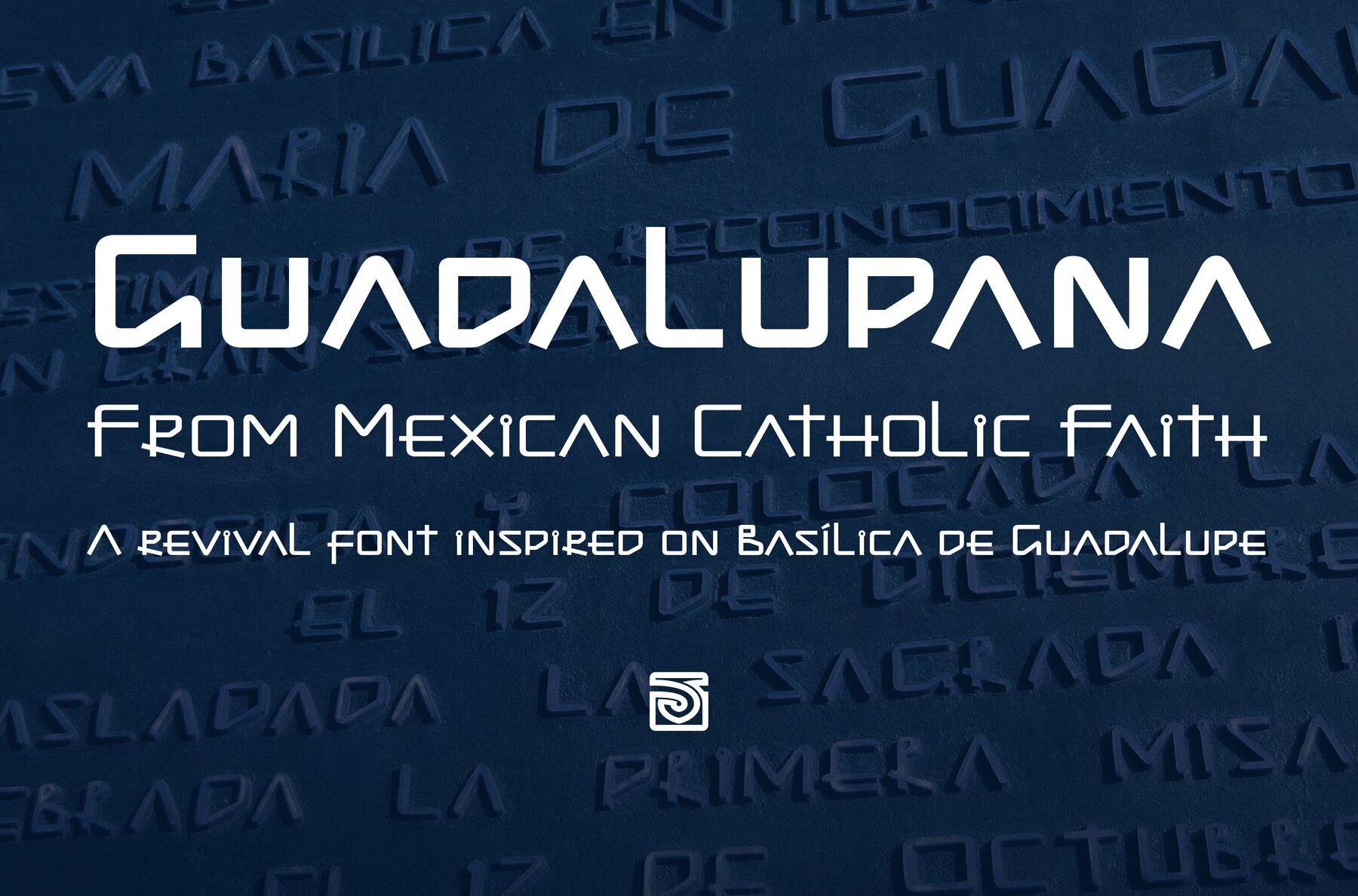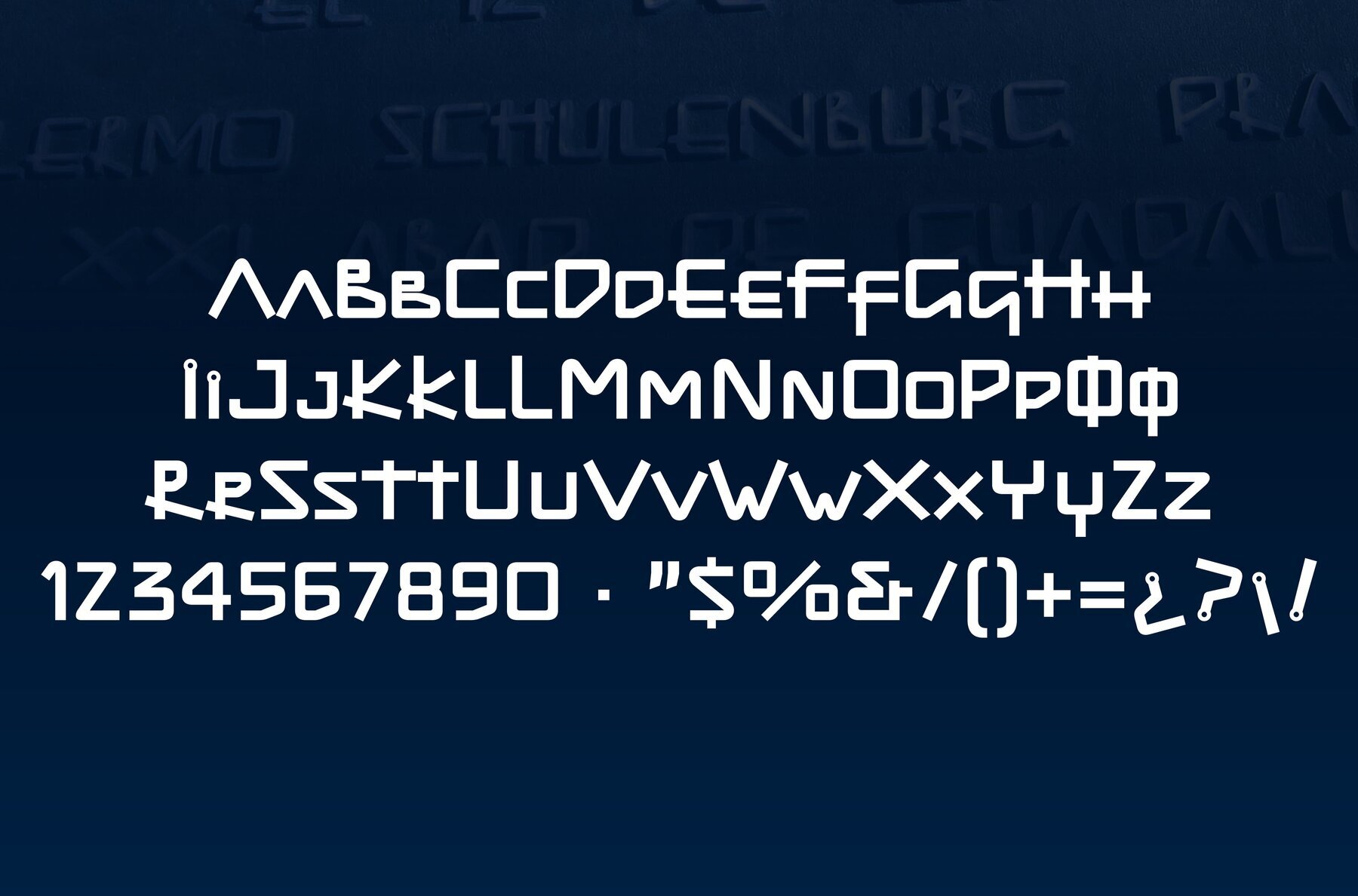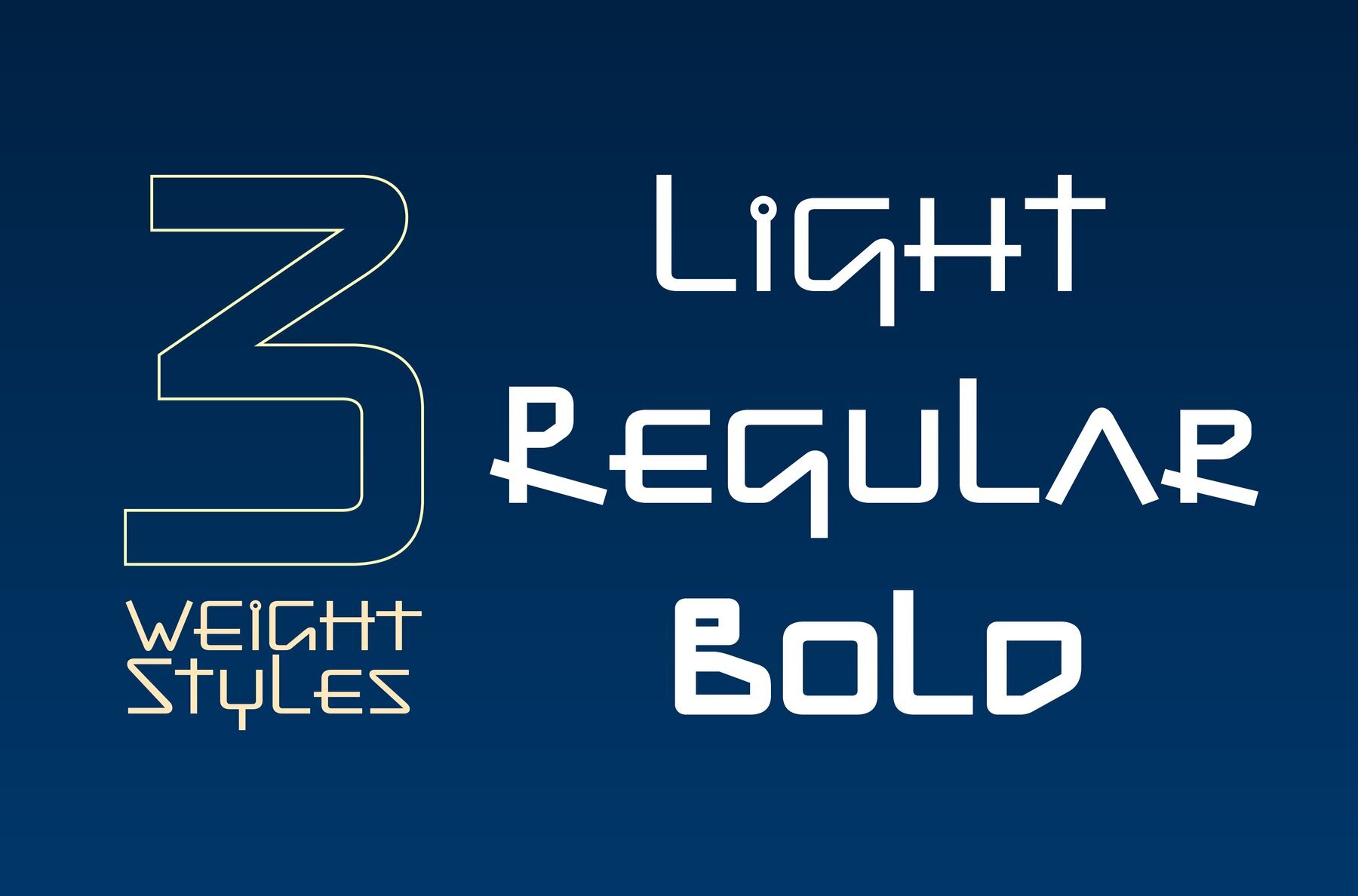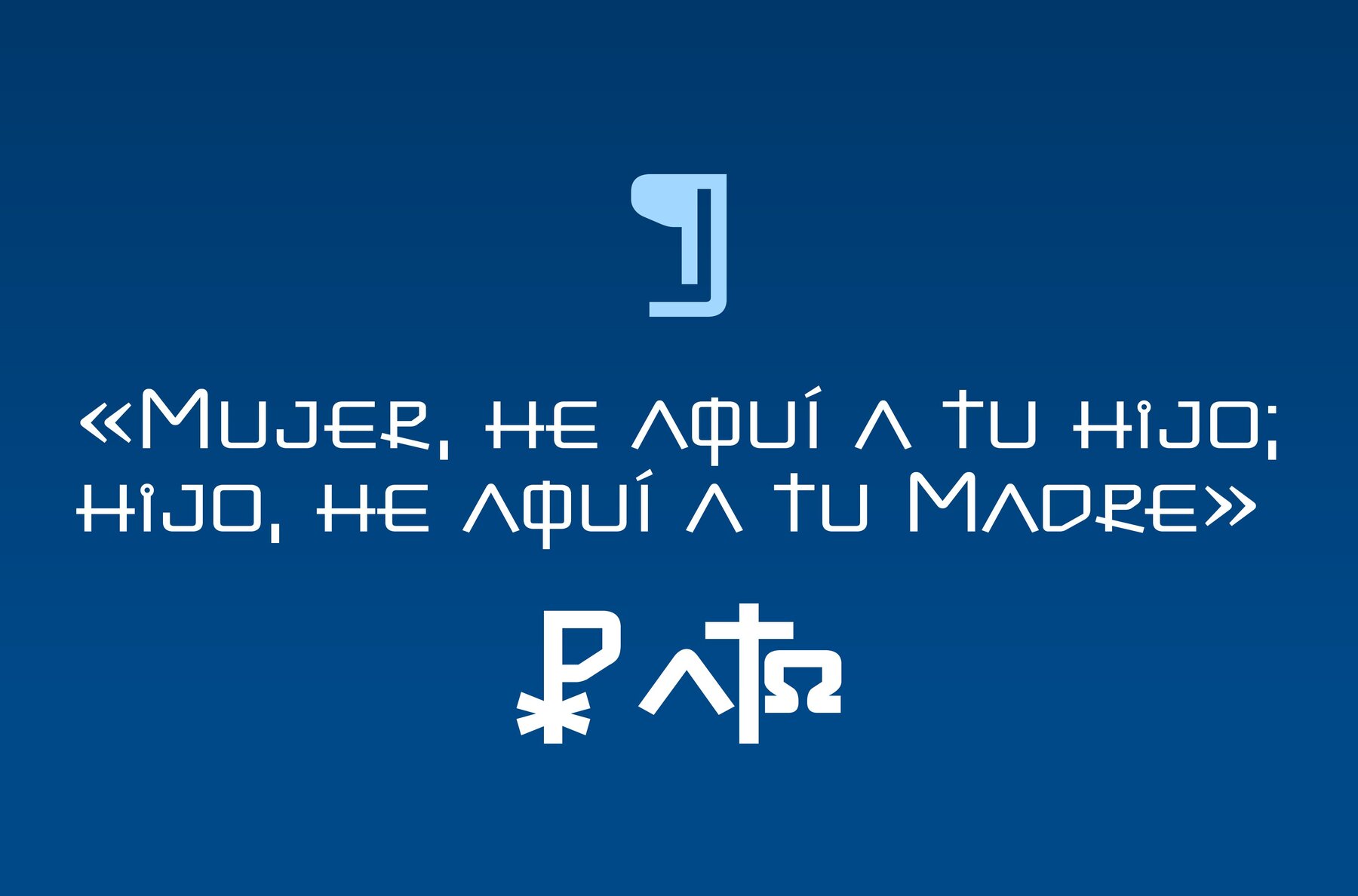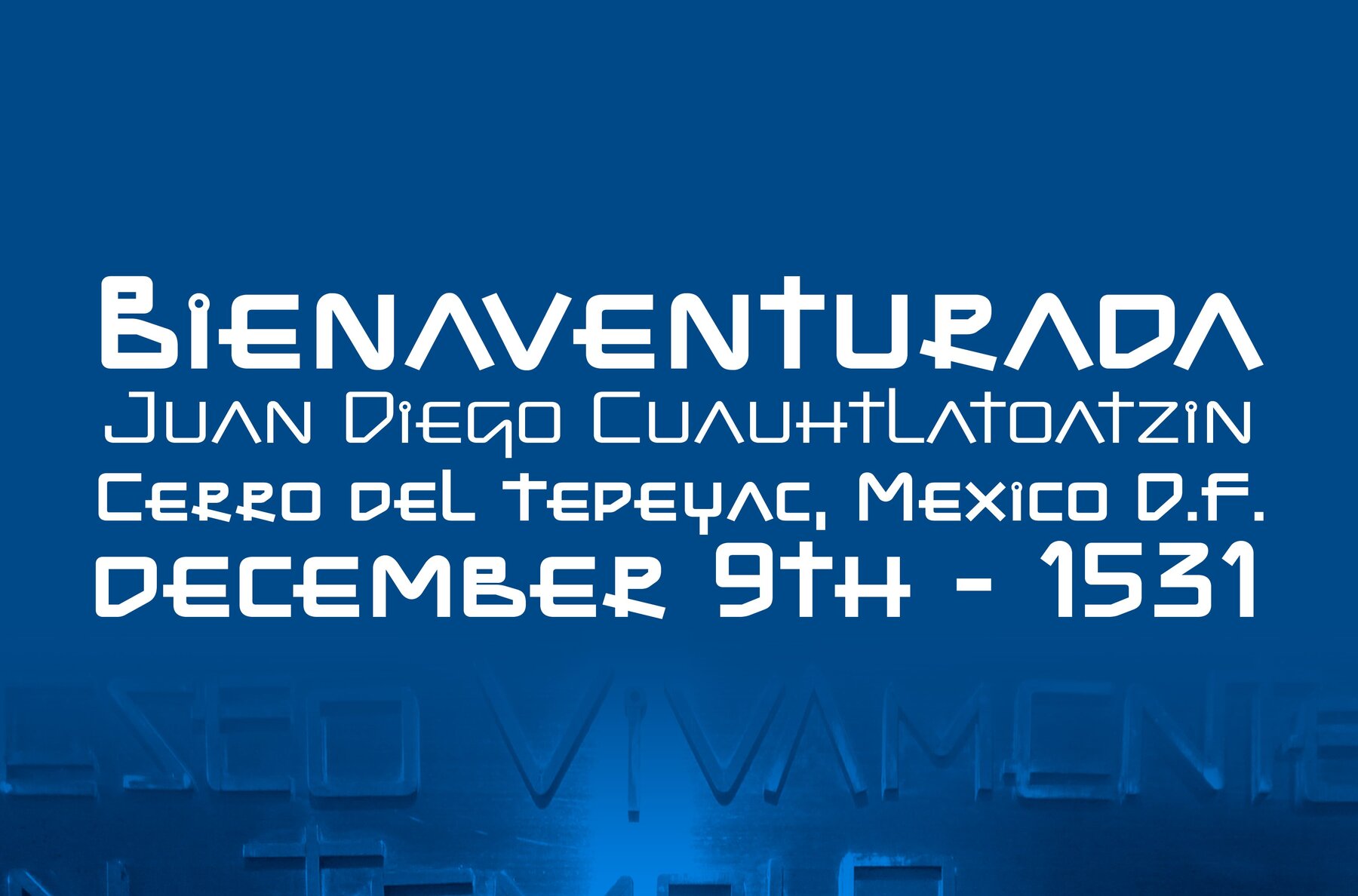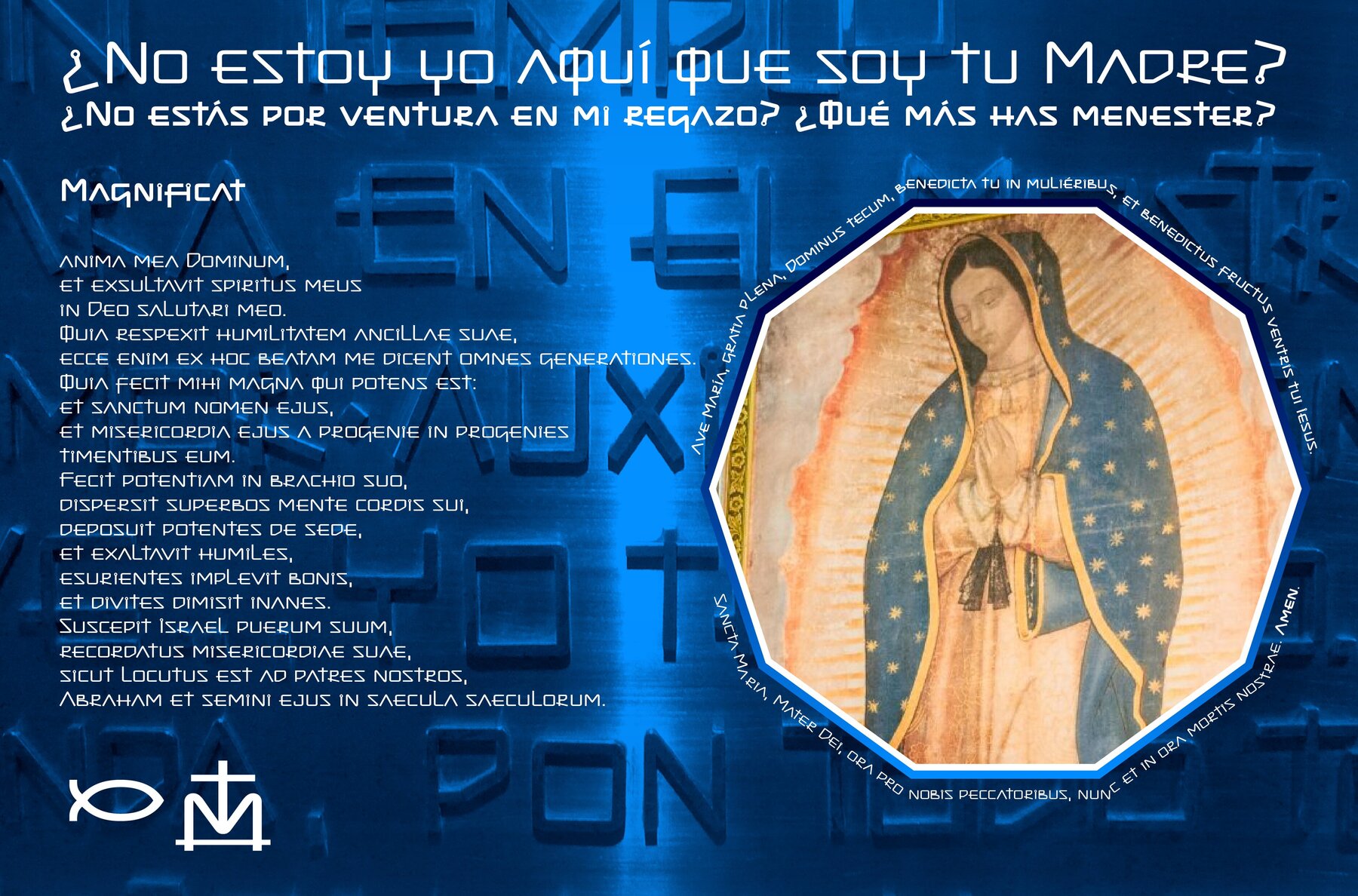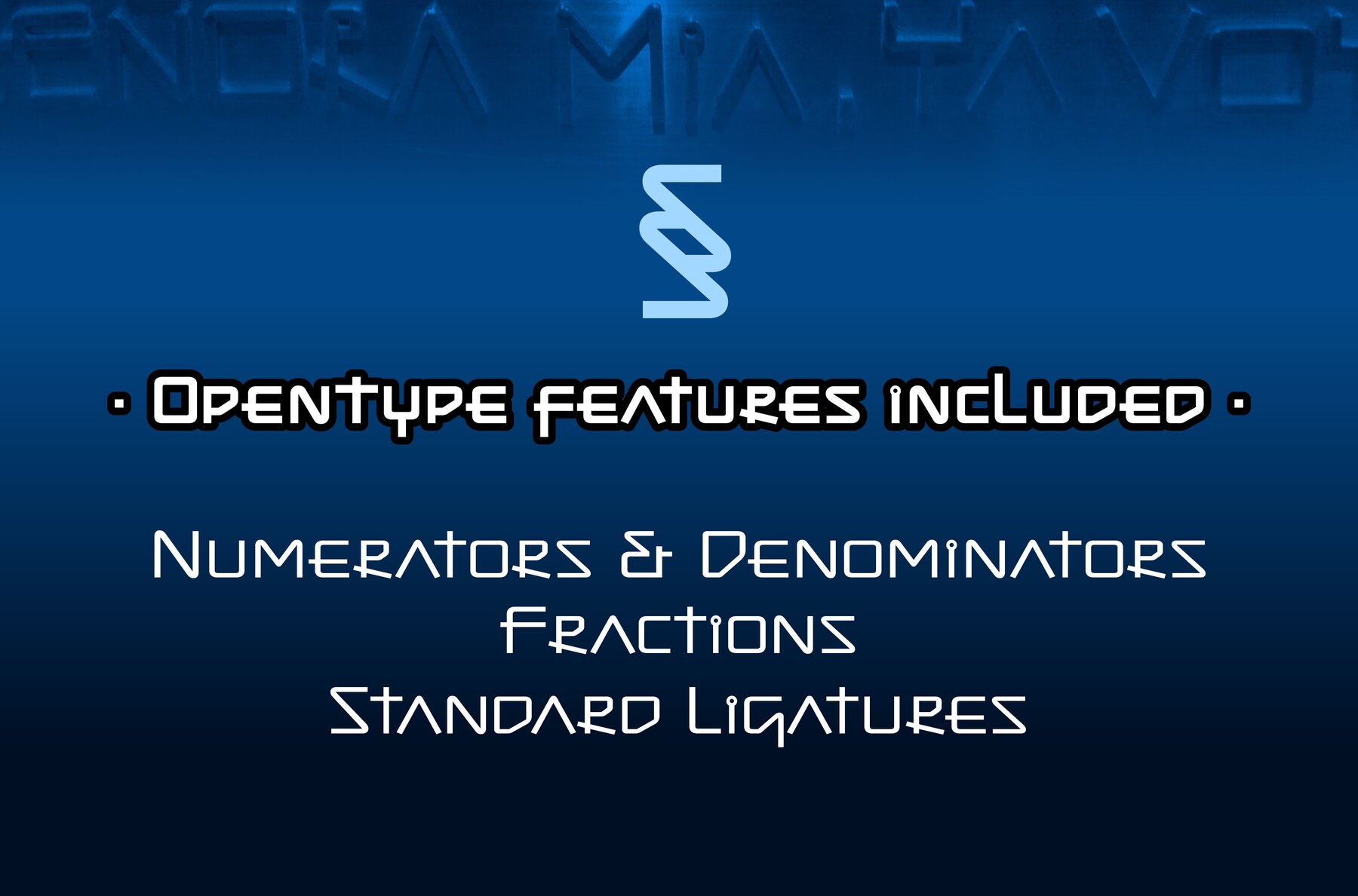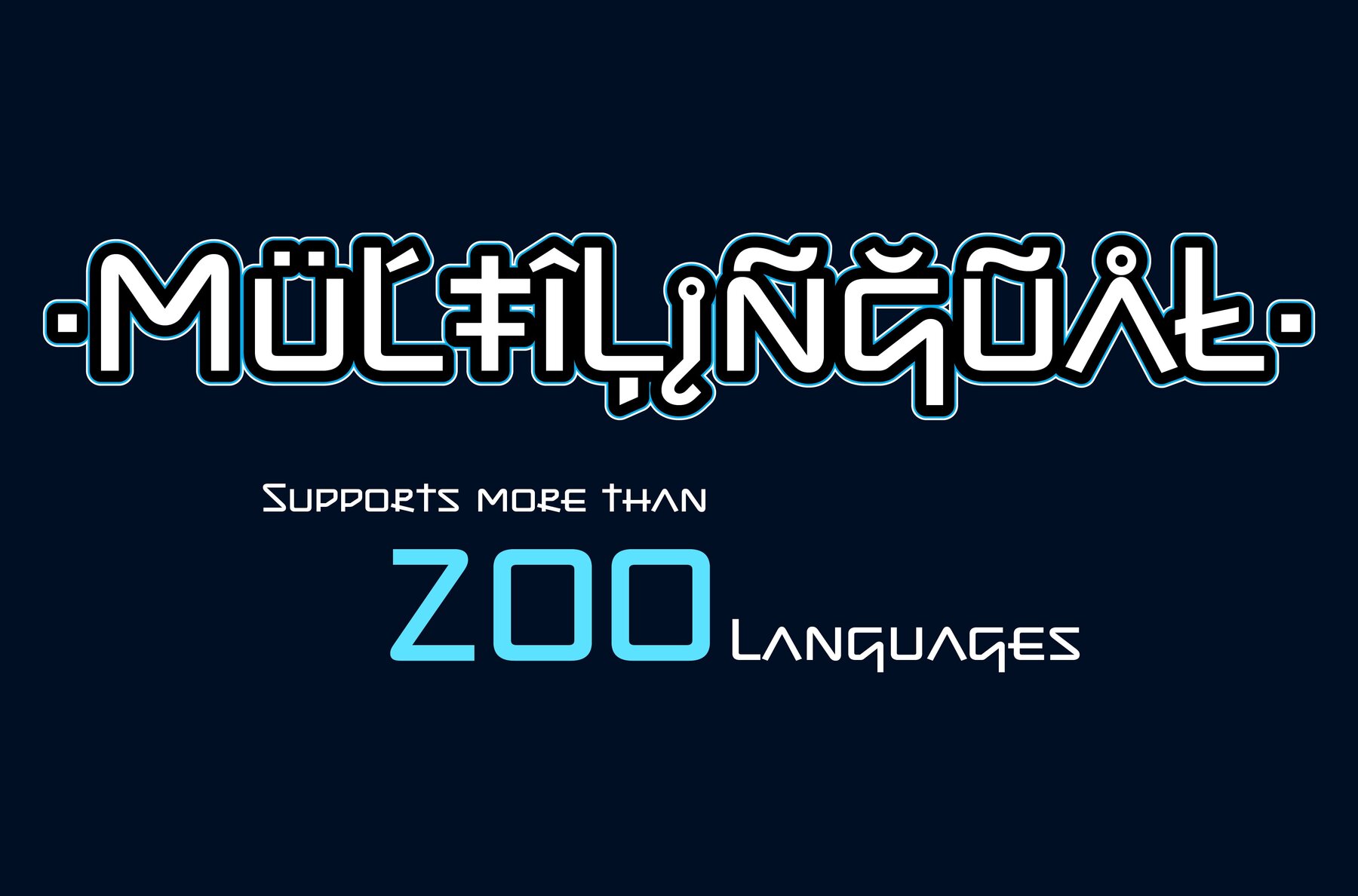
Guadalupana Font
Guadalupana is a unique typeface inspired by the architectural grandeur of the Basilica of the Virgin of Guadalupe, inaugurated on October 12, 1976. Designed to reflect the essence of the basilica's spacious interior and ornate bronze elements, this font pays homage to the signs and inscriptions found within. It captures the ecclesiastical elegance of the original letterforms, bringing them into the digital age.
The font is a reinterpretation of the distinct style used in the original basilica's text, designed by Mexican architect Pedro Ramírez Vázquez. It embodies the cultural and historical significance tied to the beloved Mexican Patron Saint, the Virgin of Guadalupe. This typeface is ideal for graphic and digital designers seeking a font that blends historical richness with modern design, offering both aesthetic and practical applications for contemporary projects.